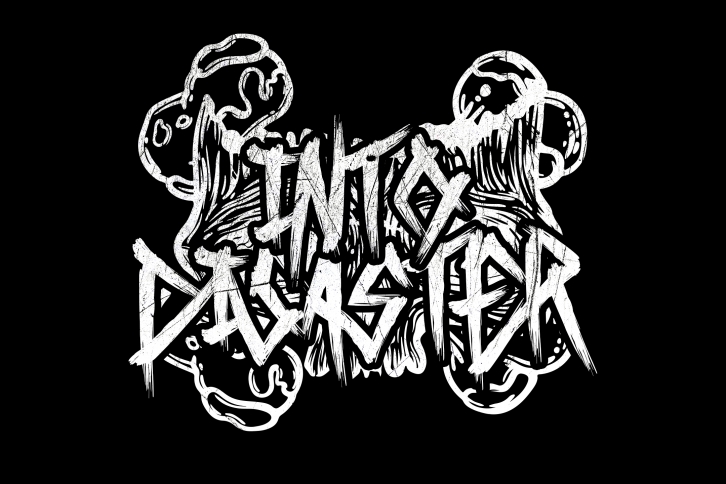
Into Disaster is a beautiful font that was designed by LJ Design Studios. It's a great choice for designers and creatives who need such a font. It was released on February 27, 2019 and the file size is 6.80 MB. Into Disaster may give a more youthful, expressive and casual look to your project. It is a very beautiful, refined, elegant, and high-quality font.